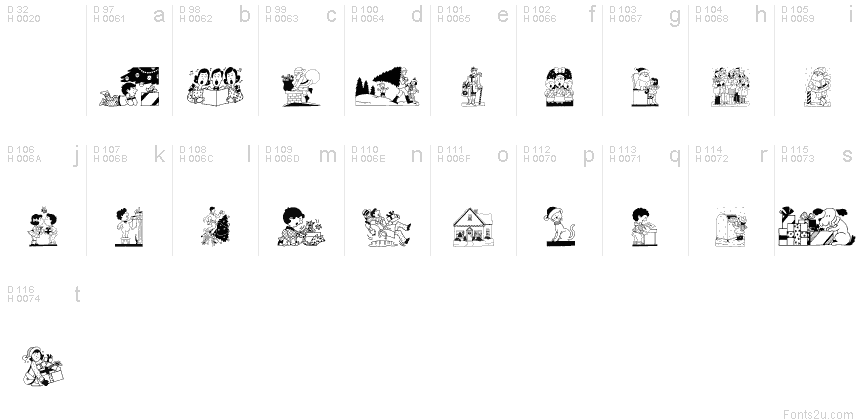
GE Comical Christmas
GE Comical Christmas font by Graphx Edge is a free cartoon dingbat font. Each glyph is a lively black‑and‑white holiday scene-kids tearing into presents, snug houses strung with lights, trees, stockings, and twinkling stars-rendered in clean, comic-strip linework that drops straight into your layout like ready-made clip art. The drawings feel warm and nostalgic, with just enough detail to read clearly even at small sizes.
Using GE Comical Christmas, you can quickly decorate greeting cards, school worksheets, party invitations, church bulletins, social posts, or kids’ activity books without hunting for separate illustrations. This free font works beautifully as a picture alphabet: set it large as focal art, then pair it with a simple rounded sans serif for captions or headlines.